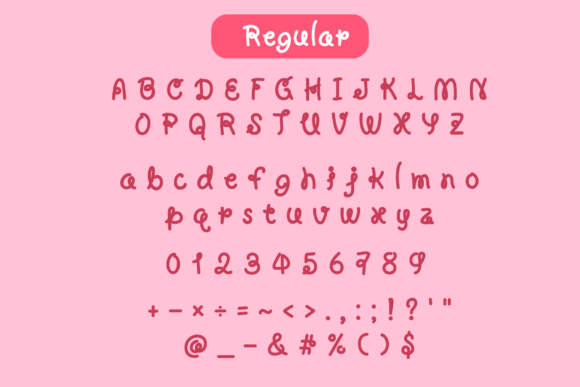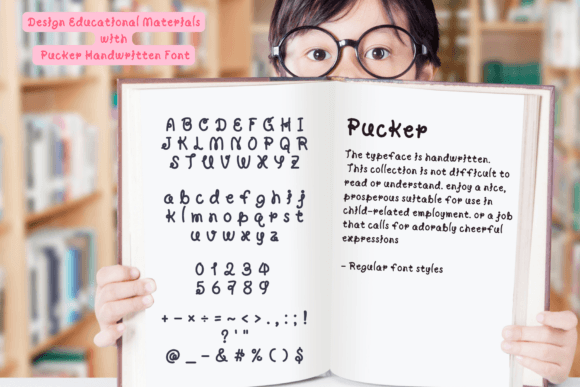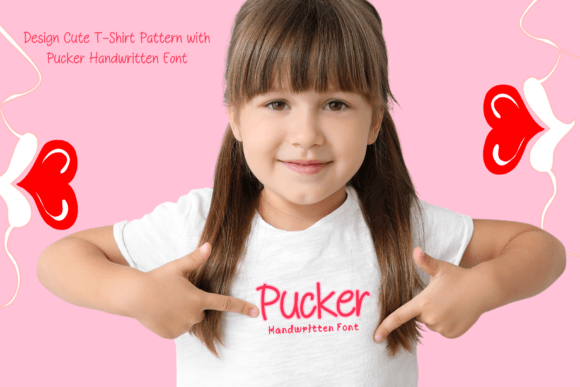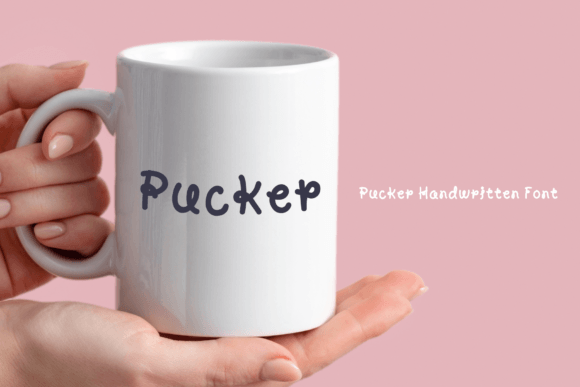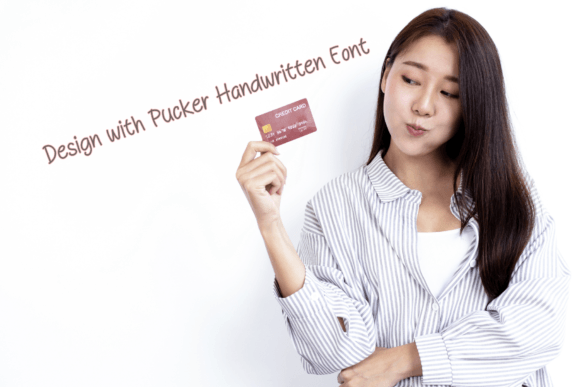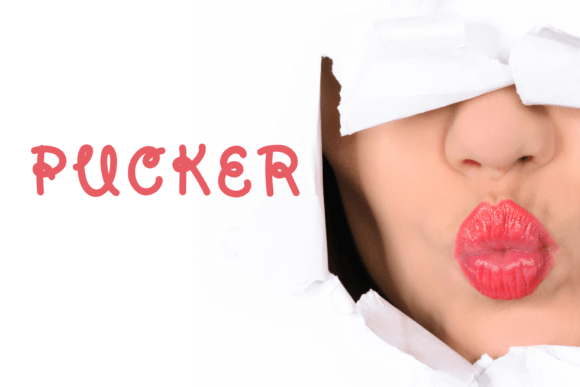
Introduction to Pucker Font
Remember that moment when you stumbled upon the perfect font for your creative project? The one that makes your design stand out and captures the essence of your message? For many designers, that moment is elusive, but with the right tools, it’s within reach. The Pucker Font is one such treasure that can elevate your child-related themes and other cheerful presentations to the next level.
Designed with love and care, the Pucker Font is not only visually appealing but also easy to read and understand. Its high-quality design makes it a valuable resource for designers, and the best part? It’s available for a free download. With a transparent background, this font is perfect for creating stunning graphics, logos, and more. Whether you’re working on a creative project or simply looking for a design resource to add some flair to your work, the Pucker Font is an excellent choice.
Pucker Font
- High-quality font suitable for creative projects, available for free download.
- Design resource featuring a unique, hand-drawn style with a transparent background.
- Includes 6 font styles: Regular, Bold, Italic, Bold Italic, Outline, and Shadow.
- Size: Each font character is designed with a large x-height for optimal readability, making it perfect for body text and headings.
- Resolution: Optimized for use at any resolution, from low-resolution displays to high-resolution print materials.
- Unique characteristics: Each letter is carefully crafted to have a ‘puckered’ effect, giving it a fun and playful feel.
Honest Review: Pucker Font
I recently had the chance to work with the Pucker Font, and I must say it’s been a game-changer for my creative projects. The font is available for a free download, making it a fantastic design resource for anyone on a budget.
- What works well: ✨ The Pucker Font has a unique, playful feel that adds a touch of personality to any design. The transparent background makes it easy to use on a variety of backgrounds, from bold and bright to subtle and muted.
- What works well: ✨ The font is incredibly versatile, making it perfect for a range of creative projects, from social media graphics to print materials.
While the Pucker Font is a great addition to any designer’s toolkit, there are a few limitations to be aware of:
- ⚠️ The font may not be suitable for use in small text sizes, as the characters can become difficult to read.
- ⚠️ Some users have reported issues with the font’s compatibility with certain design software.
Overall, I’m really impressed with the Pucker Font. It’s a high-quality design resource that’s perfect for anyone looking to add a touch of personality to their creative projects.
Pucker Font
Pucker Font is a versatile and high-quality font perfect for any creative project. It’s available for free download, making it an excellent design resource for designers and non-designers alike.
Tips for Getting the Most Out of Pucker Font
For optimal results, use Pucker Font with a transparent background to create a clean and modern look. Experiment with different font sizes and styles to add visual interest to your design.
Pucker Font is suitable for a wide range of creative projects, including social media graphics, business cards, and posters. Its high-quality design makes it an excellent choice for any project requiring a professional touch.
Alternatives to Pucker Font
Comic Sans MS is a playful and casual font that is ideal for creative projects such as posters, flyers, and social media graphics. It’s free to download and can be used for both personal and commercial purposes. This font is great for adding a lighthearted touch to your design, but it may not be suitable for high-end or professional designs. Compared to Pucker Font, Comic Sans MS has a more informal and playful feel.
What is the recommended font size for optimal readability with the Pucker Font?
The recommended font size for optimal readability with the Pucker Font depends on the specific design and intended use. However, as a general guideline, we recommend using font sizes between 12px and 24px for body text, and larger sizes for headings and titles. You can adjust the font size to suit your design needs and ensure clear readability.